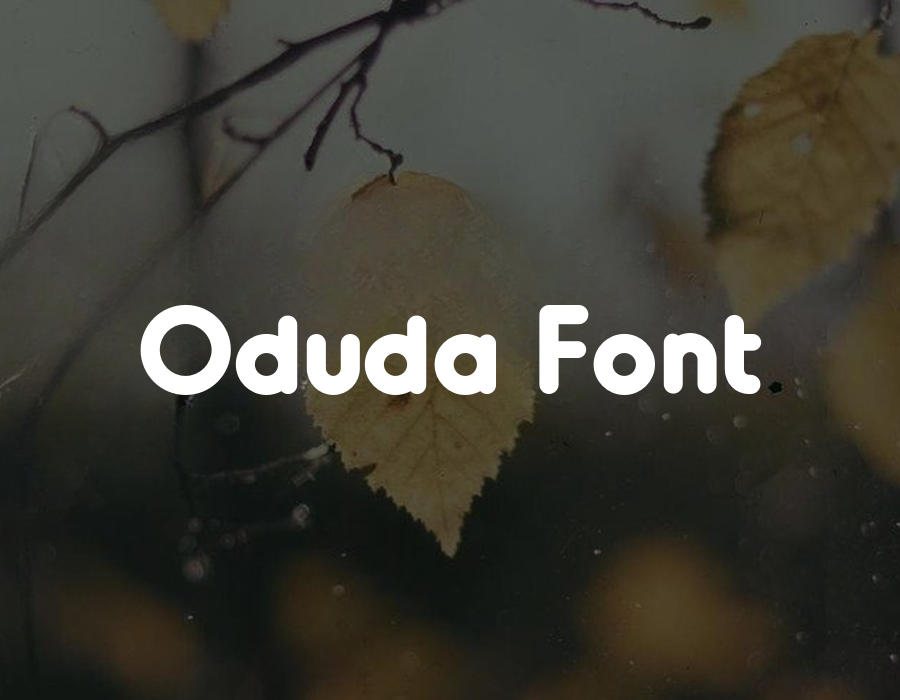
About Oduda Font
Oduda is a striking, free display font characterized by its bold, geometric letterforms and a distinctively compact, futuristic aesthetic. The design features clean lines, minimal contrast, and a low x-height, giving it a solid, block-like presence that feels both technical and modern. With its sci-fi and tech-inspired vibe, it is an excellent choice for video game titles, movie posters, gadget branding, and any design project that aims to convey innovation, strength, and a forward-looking attitude. Its bold weight ensures maximum impact even at small sizes, making it ideal for attention-grabbing headlines and logos.